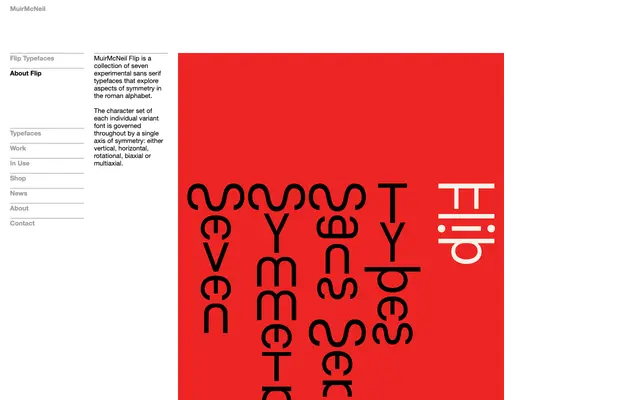
Flip
A collection of seven experimental sans serif typefaces in which each variant is governed by a single axis of symmetry, from vertical and horizontal through to biaxial and multiaxial.
Each of the seven fonts in the Flip collection applies a distinct symmetrical constraint to the entire Latin character set, including vertical, horizontal, rotational, biaxial and multiaxial axes. Glyphs are reduced to their simplest symmetrical shapes while legibility is maintained as far as the mirroring allows. The collection also includes subcomponent font pairs that each show only half of a glyph, designed to be recombined into composite forms. Flip is a development of MuirMcNeil Sans Sans, an ongoing programme investigating the fundamental attributes of alphabetic form.
Although structurally based on a sans serif skeleton, Flip's governing principle is symmetrical manipulation of letterforms rather than typographic function, placing it firmly in the display/experimental category.